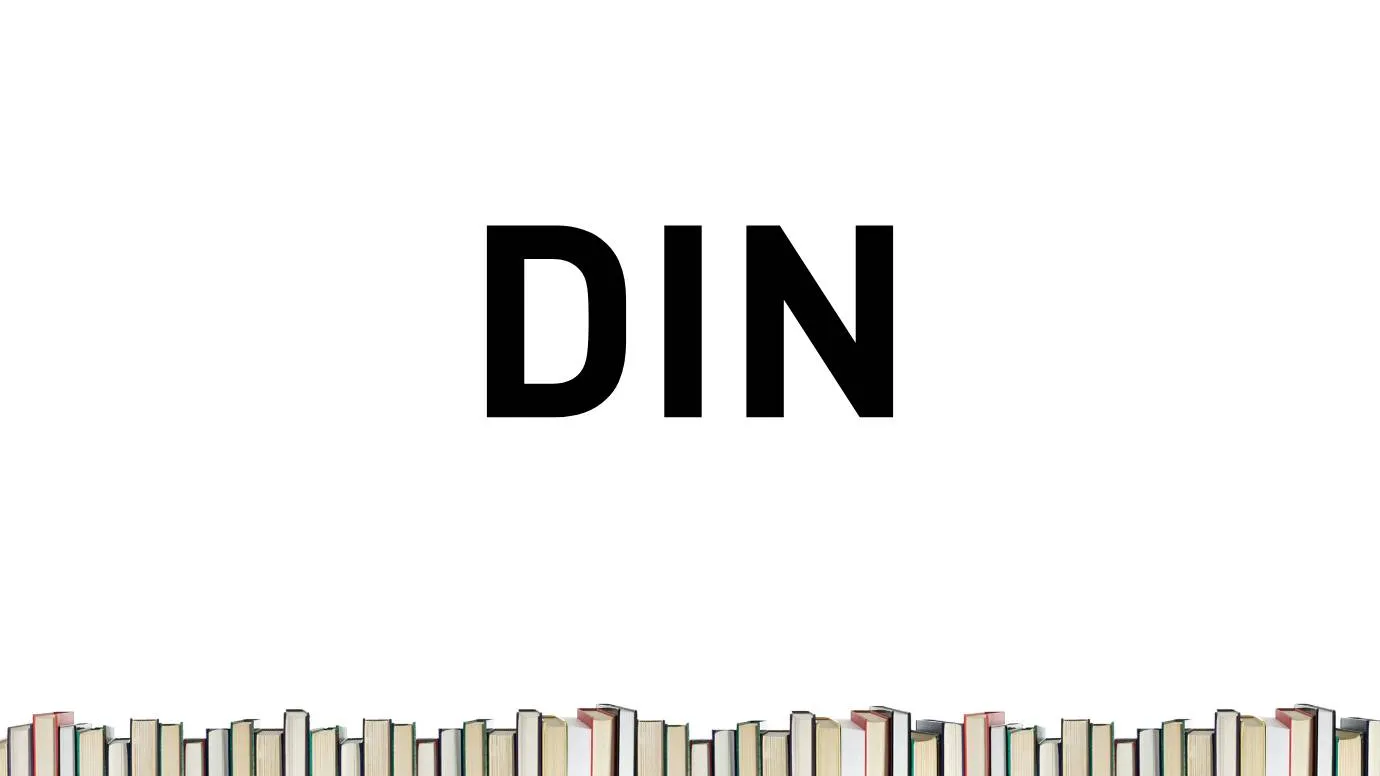
DIN originates from a diverse category of fonts. It was characterized by the Germans. A DIN font presents a distinct and elegant appearance that enhances the beauty of your design.
This font also can be used for printing purposes. For a sleek and consistent modern vibe, combine DIN with Roboto font.
| Name | DIN |
| Designer | Albert-Jan Pool |
| Type | Sans-serif |